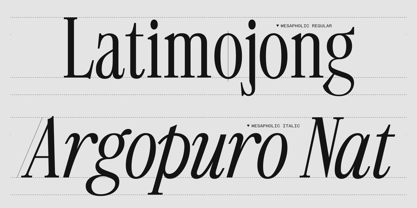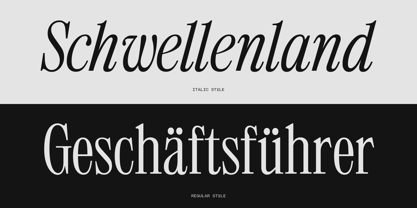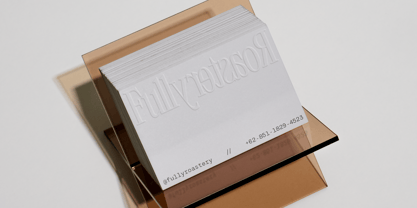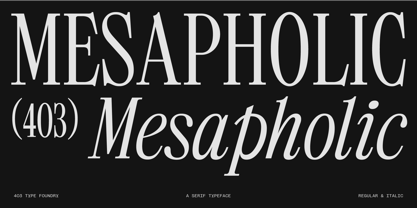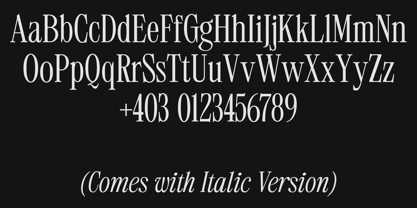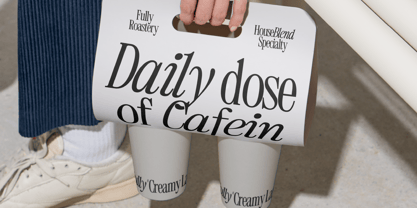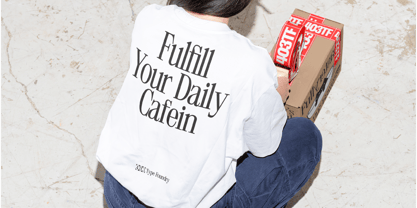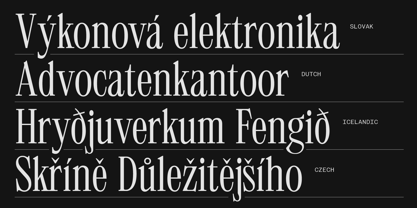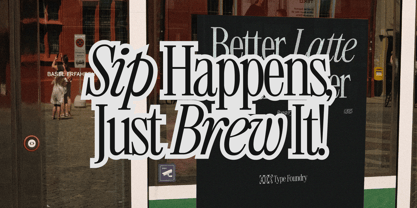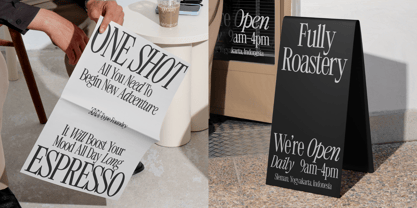
403 Mesapholic
by 403TF
The 403 Mesapholic Font Family was designed by Umar Al Farouq, Jodi El Ghazi, Febri Riansah and published by 403TF. 403 Mesapholic contains 2 styles and family package options. More about this family
Meet 403 Mesapholic, a typeface of dynamic contrasts designed to give your brand a premium, artisanal voice. This isn't just a font, it's a system of two complementary personalities. It perfectly balances sharp, editorial precision with the warm, human touch of a flowing signature. It’s the definitive choice for a brand that is both serious about its craft and passionate in it’s delivery. The philosophy of Mesapholic lives in its striking duality. The Regular style is all about structure and sophistication. Its high contrast, razor sharp serifs create a confident, editorial tone that feels established, timeless, and trustworthy. But the Italic is where the magic happens. It breaks free from the rigid structure, transforming into an expressive, fluid, and flowing form. This isn't just a slanted version, it's a completely different, calligraphic personality. It feels personal and bespoke, adding a necessary touch of human warmth and craft. As the previews show, 403 Mesapholic is a dream for specialty and craft focused brands. It’s tailor made for third wave coffee roasters, high end cafés, craft distilleries, boutique bakeries, and any brand that values quality and craftsmanship. It’s ideal for packaging, logotypes, menu design, and website headlines where you need to mix a strong, clear message (using the Regular) with a touch of signature personality (using the Italic). Key Features Two Dynamic Styles: Includes the structured, high-contrast Regular and the fluid, expressive Italic. Artisanal & Premium Vibe: Perfectly crafted for coffee, craft goods, and high-end editorial branding. Expansive Language Support: Flawlessly supports over 270 languages, helping you reach a global audience. Rich Glyph Set: Features 494 glyphs per style, including comprehensive caps, lowercase, numerals, and punctuation. Professionally Optimized: Meticulously spaced and kerned for a clean, balanced, and professional look right out of the box. Give your brand more than just a font, give it a signature. Discover 403 Mesapholic and bring your artisanal story to life.